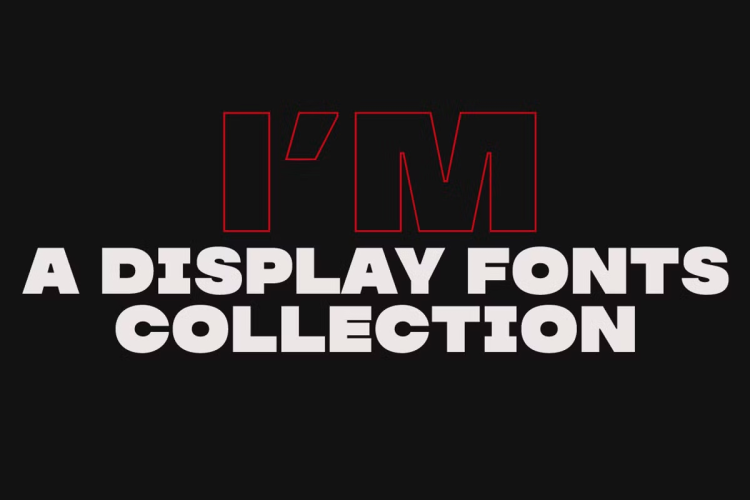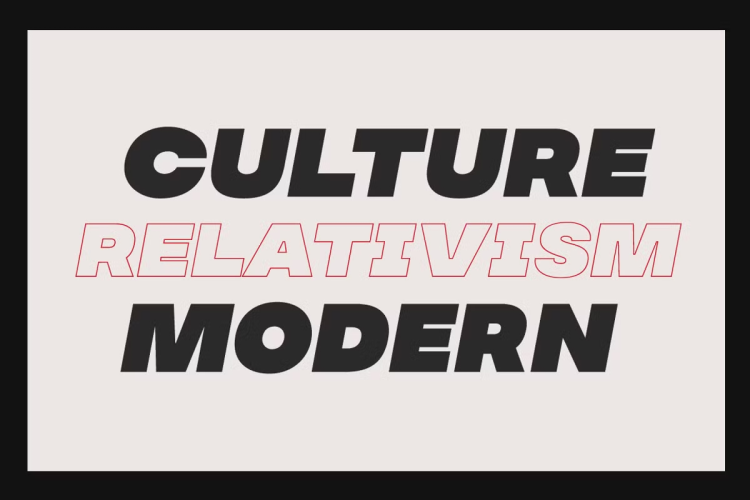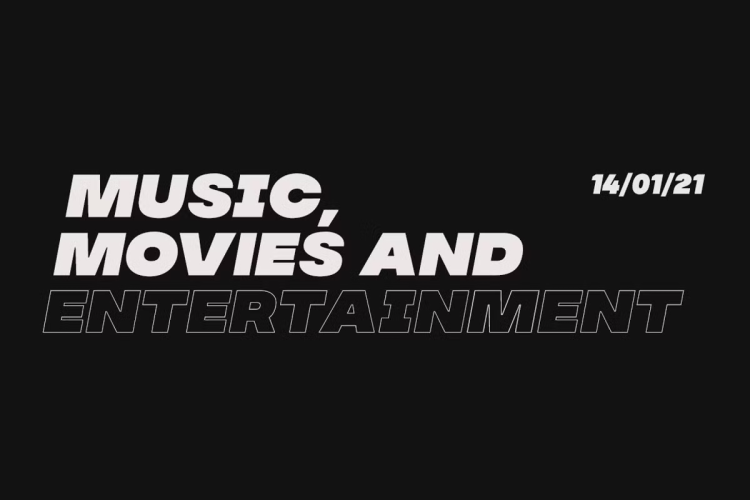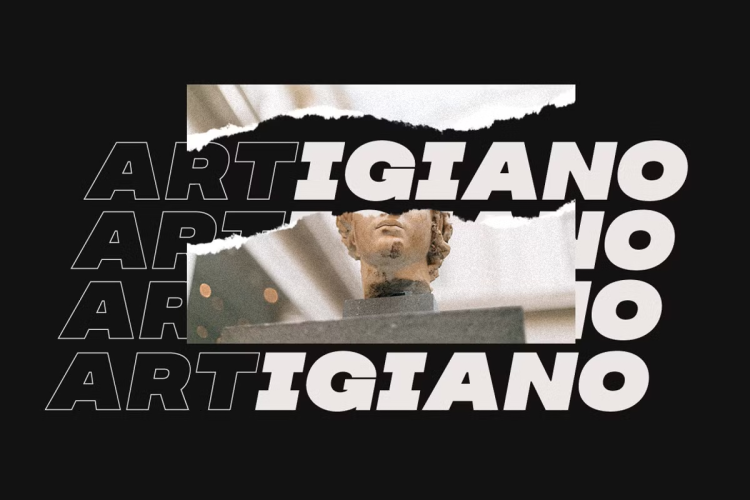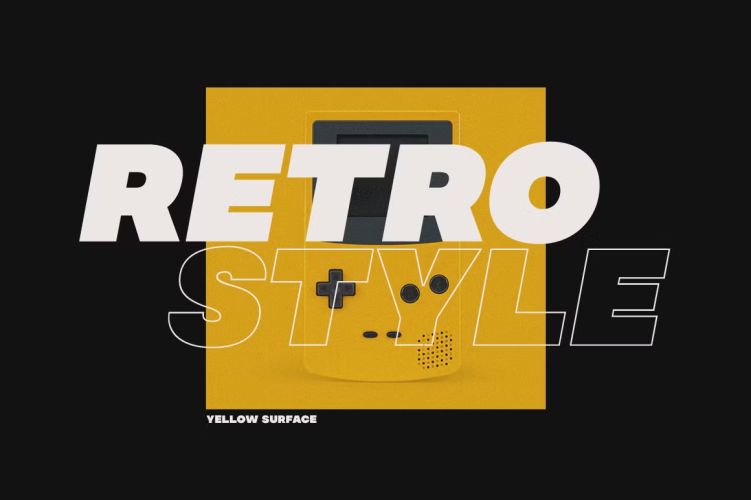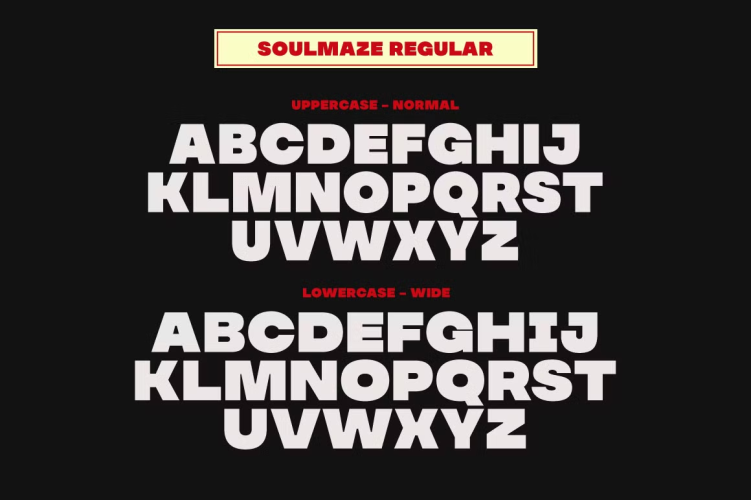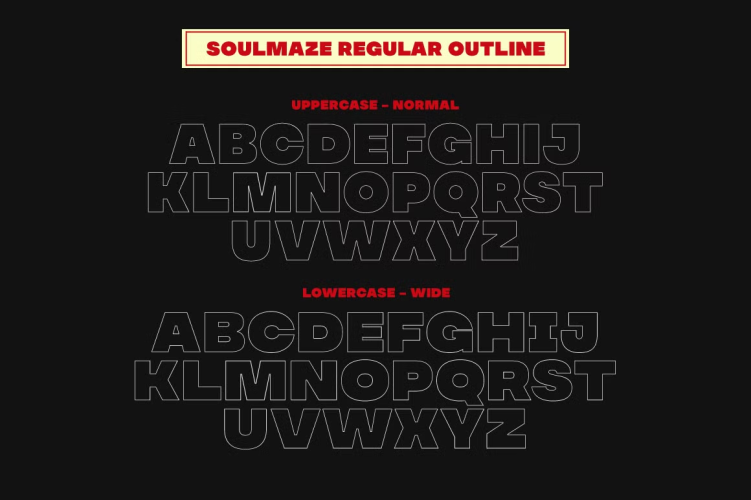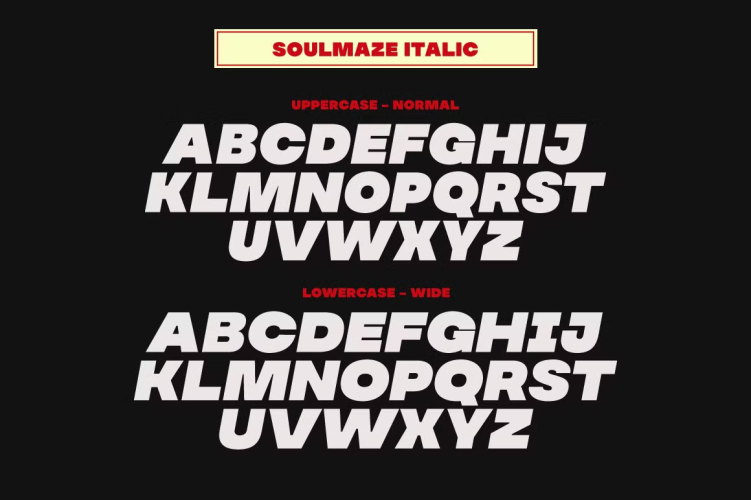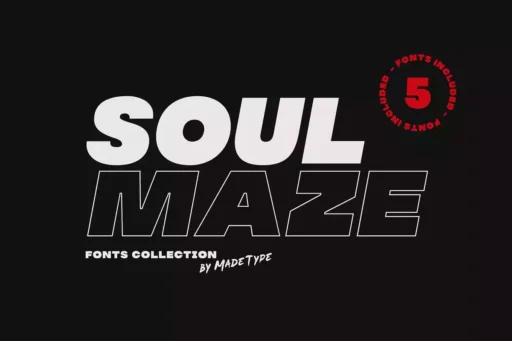
MADE Soulmaze Font
MADE Soulmaze font is a set of display fonts family by MadeType. This is a strong and powerful set of sans-serif fonts that is suitable in a wide range of projects, which makes it a great choice for any designer.
In fashion projects, the MADE Soulmaze collection stands out as unique and creative, providing an eye-catching element to any design. It is ideal for use in magazine designs; your content will look and feel up-to-date and professional.
For logos and branding, MADE Soulmaze provides an effective and memorable typeface that makes the brand stick in the minds of the consumers. This font can be helpful to photographers to provide an artistic style to the portfolios and advertisements, as well as other marketing materials.
Uppercase & alternate uppercase letters, numbers, punctuation
The MADE Soulmaze font collection provides a rich set of uppercase letters and their modifications to make your projects even more diverse and unique. This comprise many other stylistic options that you may apply on your text in order to give it a artistic effect and is thus ideal for headlines, logos, and other display styles of text. Furthermore, the font set includes numbers and all the necessary symbols to ensure you will have all the necessary character set for your work. This extensive character set is filled with numerous typographic options that can diversify your compositions and underlie the idea you want to convey.
Multilingual support
It also has a multilingual support that enables you to design any project in any language of your preference. So, If you are designing a project into different languages or if you are working on a multilingual project at the moment, this font collection will come in handy.
Where MADE Soulmaze Font works best
MADE Soulmaze Font stays legible at small sizes, which makes it a strong choice for navigation, buttons and dashboards in web design and app interfaces.
Clean sans serifs like MADE Soulmaze Font are the default language of SaaS, fintech and product branding.